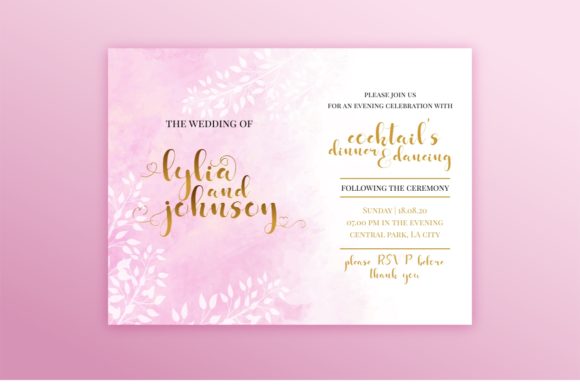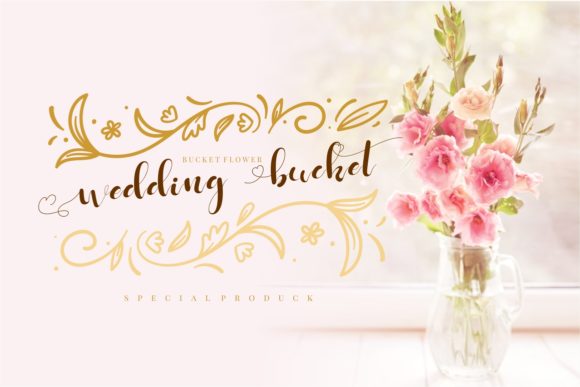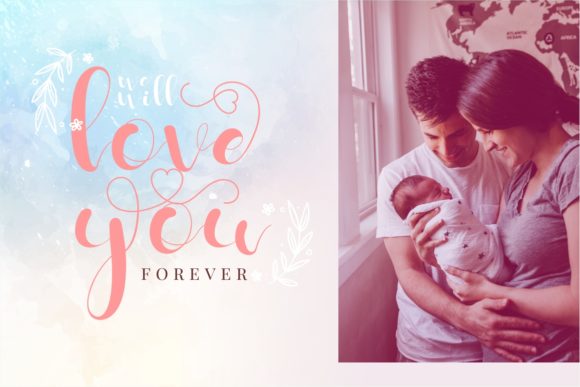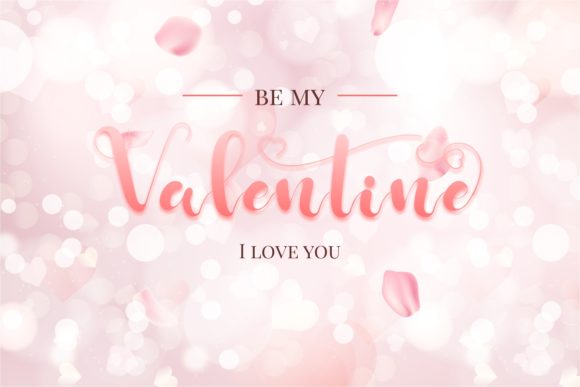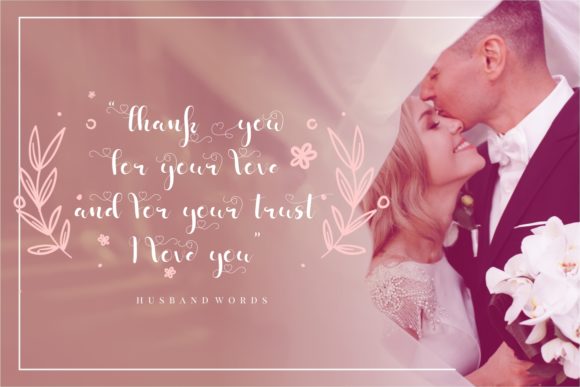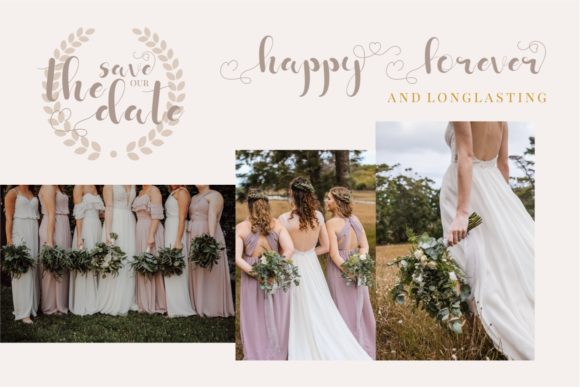
Introduction to Shafiqa Font
Have you ever stared at a blank page, waiting for the perfect font to bring your creative project to life? That’s exactly what happened to me when I first discovered the stunning Shafiqa Font. With its elegant curves and romantic flair, this beautiful handwritten script font is the perfect addition to any design resource. Whether you’re crafting quotes, wedding invitations, or posters, Shafiqa Font is the ideal choice to add a touch of sophistication and whimsy.
As a designer, having access to high-quality fonts like Shafiqa Font is invaluable. It not only saves time but also elevates the overall aesthetic of your work. With Shafiqa Font, you can create stunning visuals with a transparent background, perfect for digital designs or free downloads. Its versatility knows no bounds, making it an essential tool for any creative project. In this article, we’ll delve into the world of Shafiqa Font and explore its many uses and benefits.
Key Features of Shafiqa Font
- High-quality design resource suitable for creative projects, including logos, branding materials, and digital art.
- Unique and elegant font style with a transparent background, ideal for adding a touch of sophistication to designs.
- Available in a range of sizes, from 12pt to 72pt, making it versatile for use in various design contexts.
- High-resolution font, suitable for use in print and digital media, with a resolution of 300 DPI or higher.
- Designed to be highly legible, with clear and crisp letterforms that make it perfect for body text and headings.
- Perfect for designers looking for a free and high-quality design resource to elevate their creative projects.
Honest Review: Shafiqa Font
As a designer, I’m always on the lookout for high-quality design resources to enhance my creative projects. Recently, I came across the Shafiqa Font, and I’m excited to share my honest review.
What works well: ✨ The Shafiqa Font is a beautiful, elegant script font that’s perfect for adding a touch of sophistication to your designs. It’s a great choice for wedding invitations, branding, or any project where you want to convey a sense of luxury.
What doesn’t work well: ⚠️ One limitation of the Shafiqa Font is that it’s not as versatile as some other fonts. It’s best suited for formal or elegant designs, and may not be the best choice for more casual or playful projects.
Overall, I’m impressed with the Shafiqa Font. It’s a high-quality design resource that’s perfect for designers looking to add a touch of elegance to their creative projects.
- High-quality, elegant script font
- Perfect for formal or elegant designs
- Available in transparent background
How to Use Shafiqa Font
The Shafiqa Font is a high-quality design resource that can be used for various creative projects. It offers a unique and elegant style that can elevate your designs.
Use the Shafiqa Font on a transparent background to create a seamless design.
Combine the font with other design elements to create a unique look.
The Shafiqa Font is ideal for:
Wedding invitations and stationery.
Branding and marketing materials.
Editorial and publishing projects.
Does the Shafiqa Font include a transparent background?
Yes, the Shafiqa Font features a transparent background, allowing for seamless integration with your design elements and making it easier to achieve a professional-looking finish.